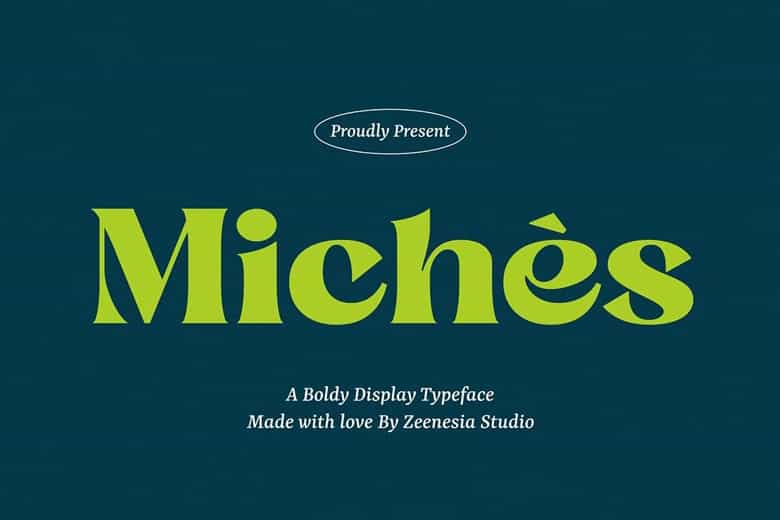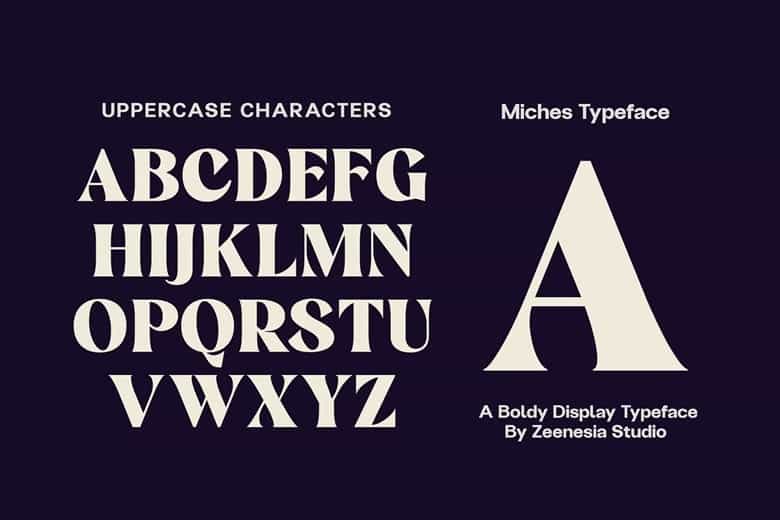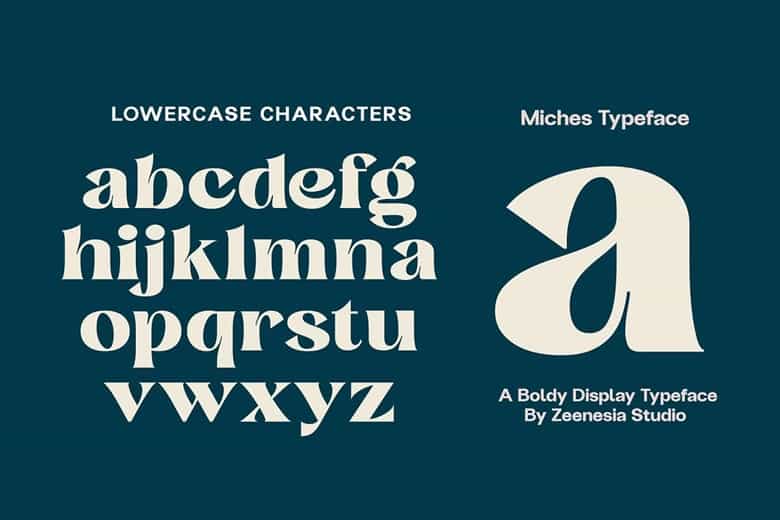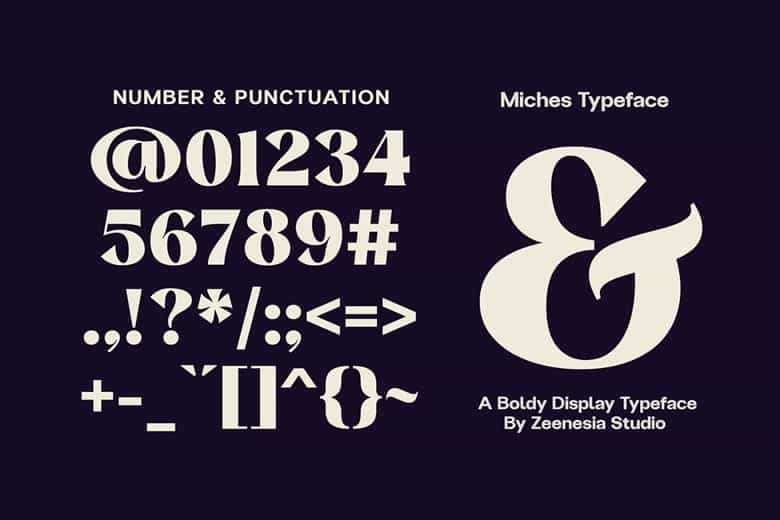
Miches Display Typeface is attention drawing, a perfect combination of contemporary style and classic design. Large size executions establish solid image characterization and elegant typography softening while Miches’ character makes it a perfect decision for various design solutions. From developing engaging headlines and creating beautiful logotypes, to making website images more eye-catching or beautifying a product’s wrapping. As much as it is glamorous when used as a fashion label’s font or when adorning the headers section of a modern magazine.